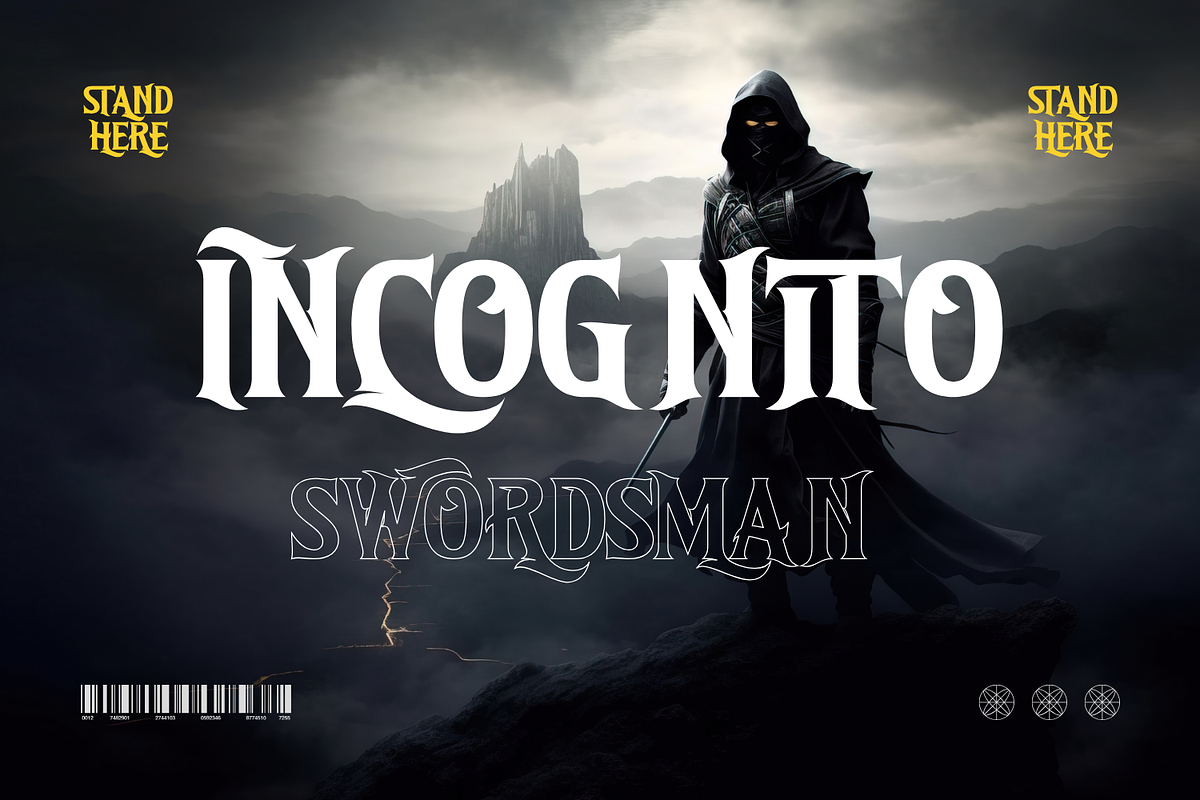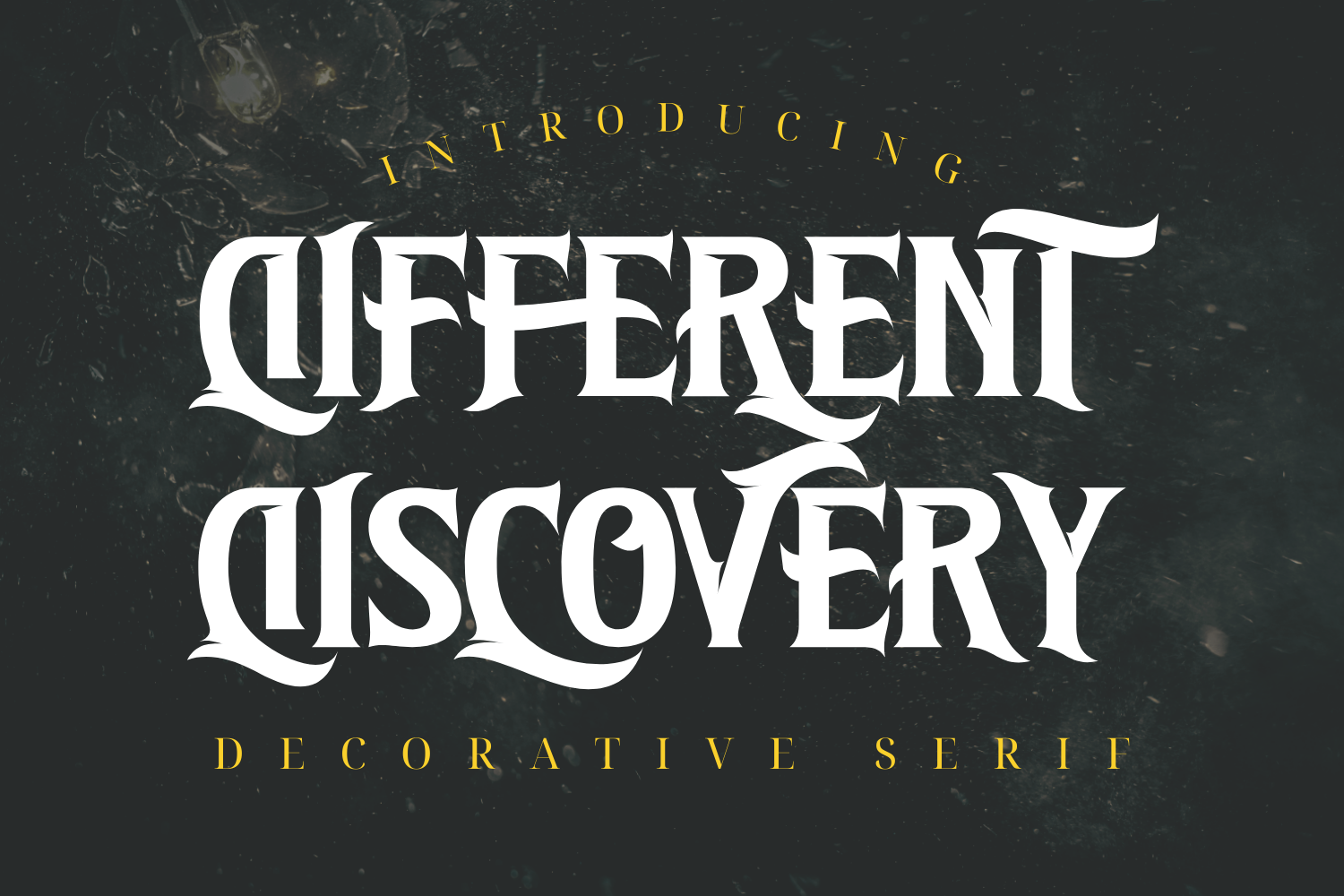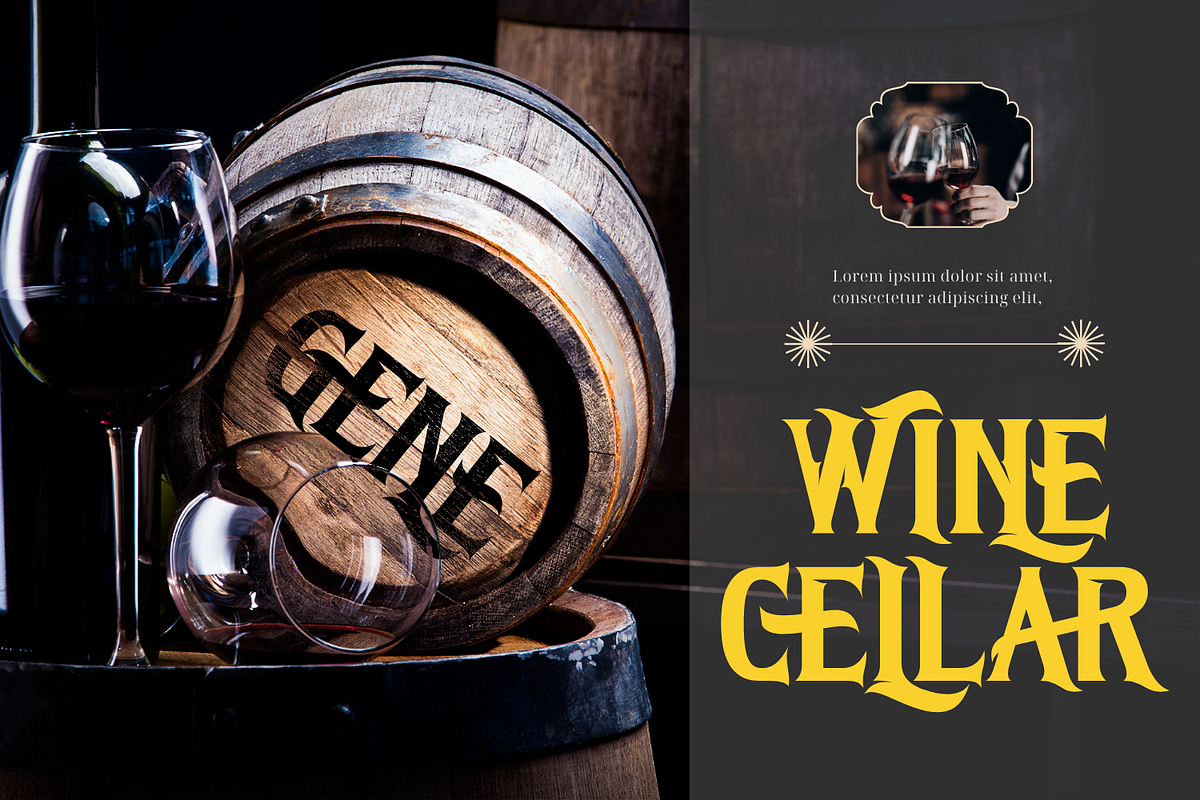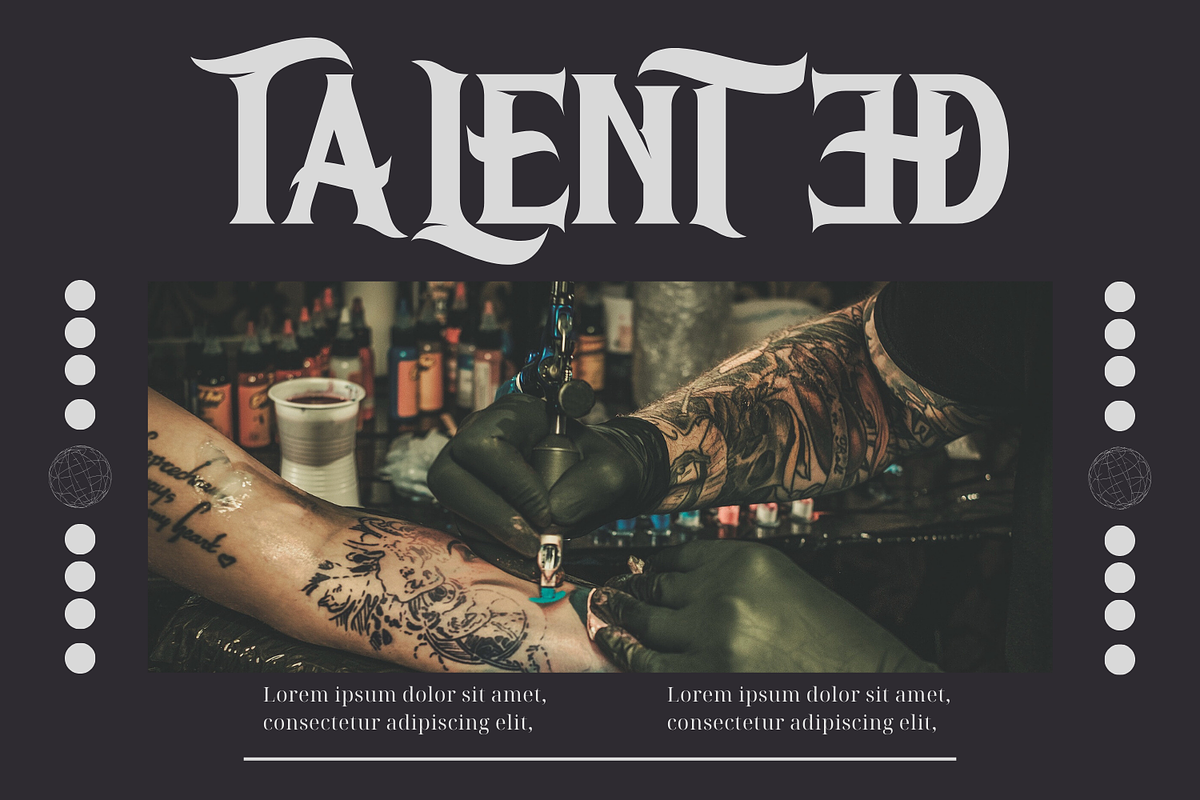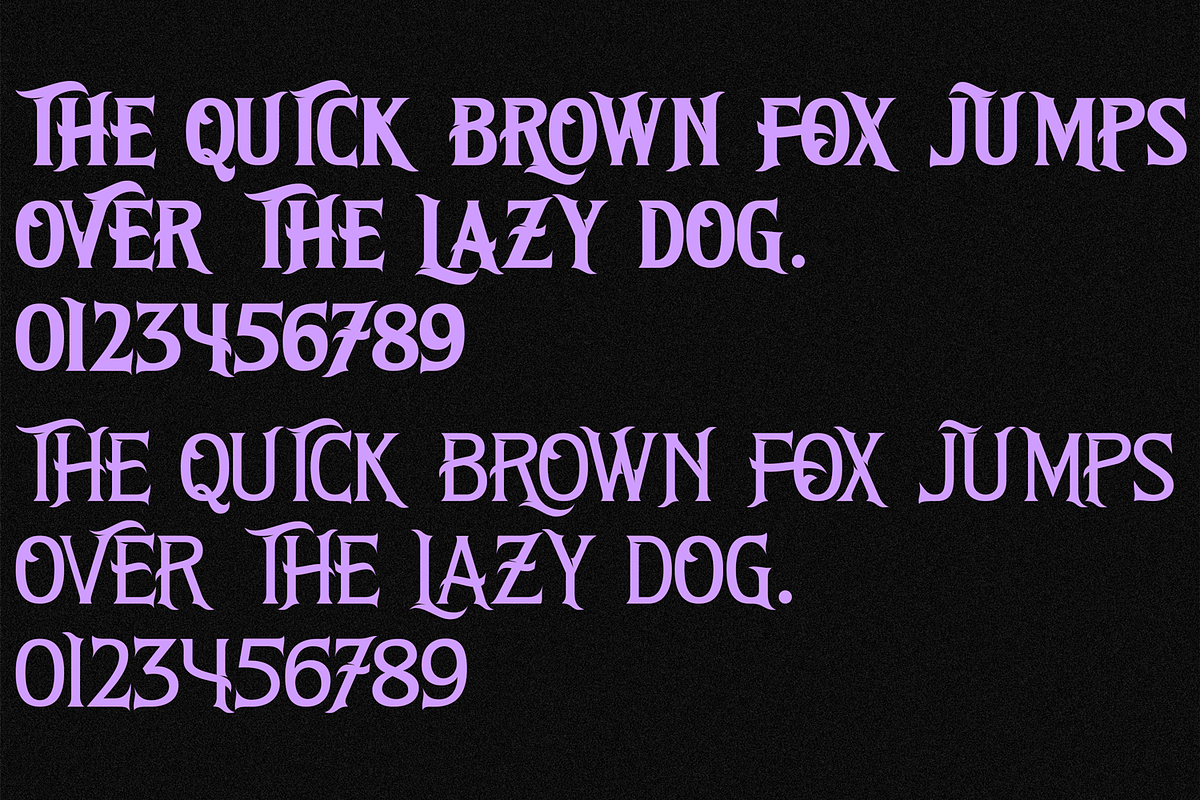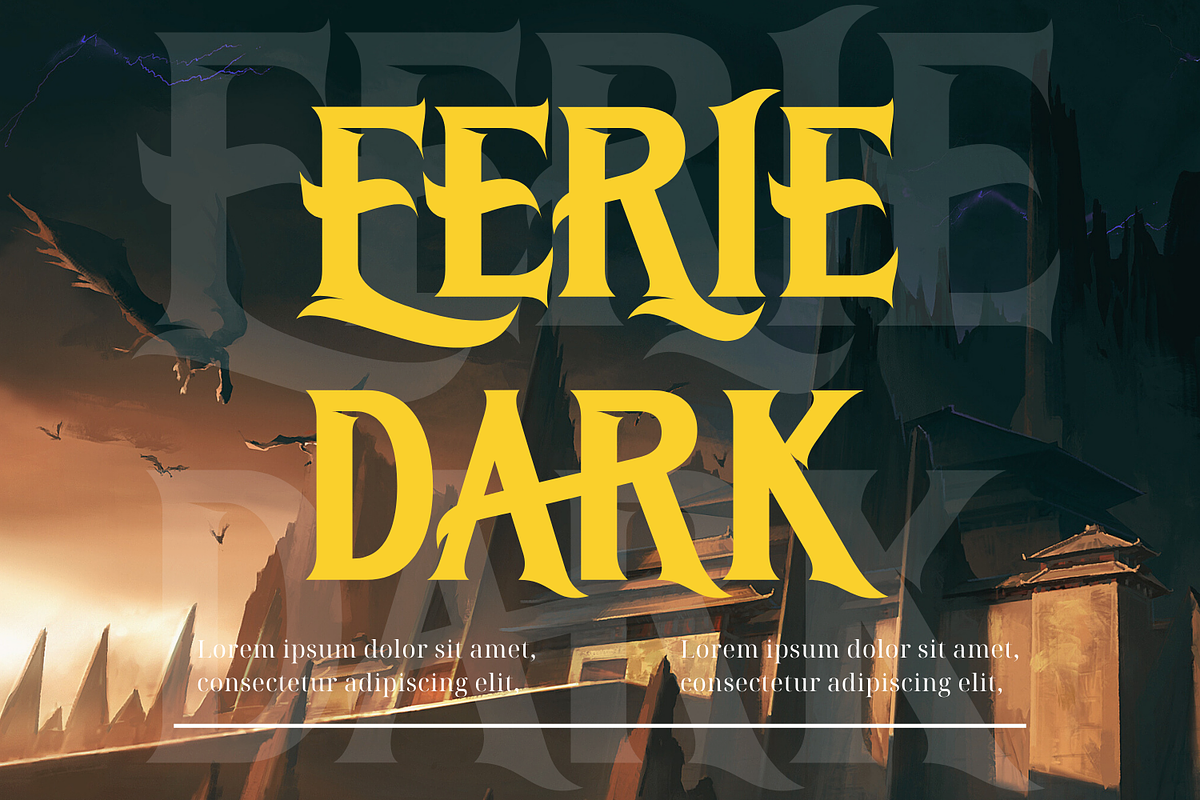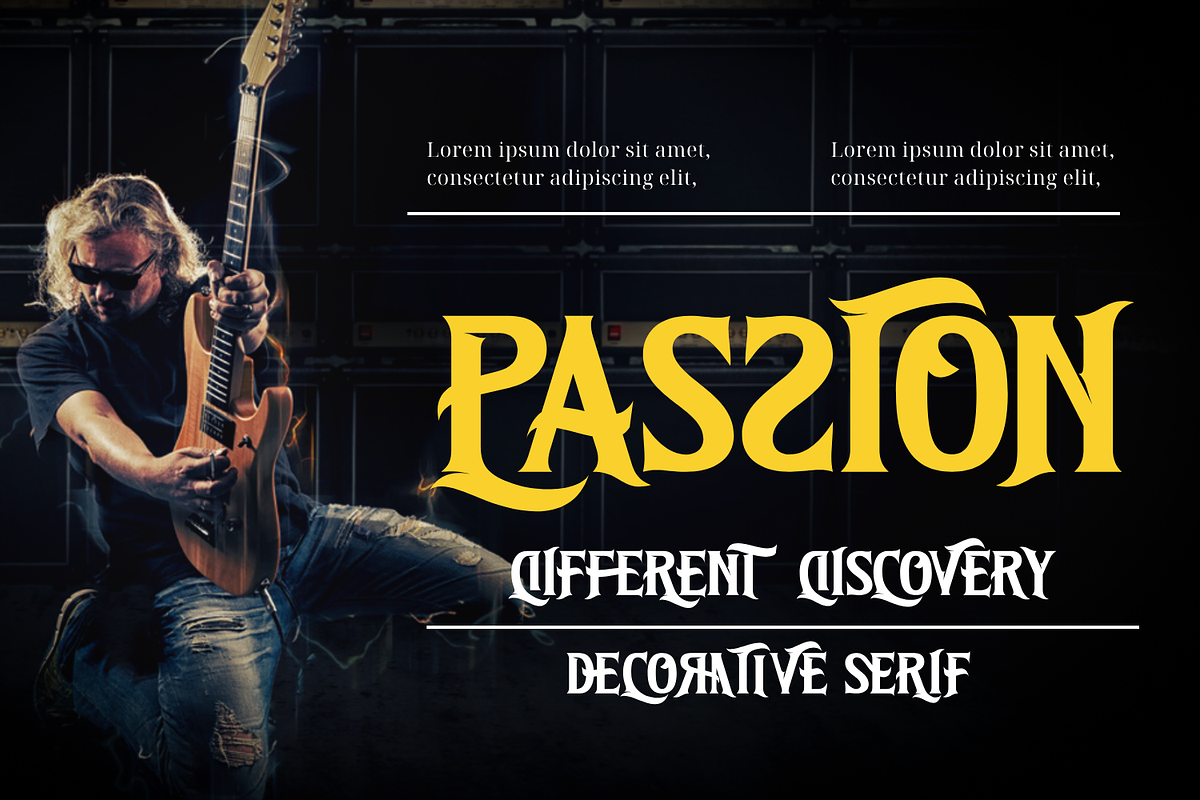
Different Discovery Font
Different Discovery Font is old vintage font inspire by culture of tatto and biker visual design. Firlest come with strong curve and artistic character make sense of elegance. Would be awesome for your merchandise design, streetwear, t-shirt, logo, typography design, poster, packaging, branding or anything else that can make your product looks awesome.
Different Discovery was built with OpenType features and includes 100 ligatures, alternate, numbers, punctuation, and it also supports other languages.
AC AD AL AN AR AS AT AU AV BE CA CE CH CO CT DE DI EA EC ED EE EL EM EN EP ER ES ET FE FO FR GE HA HE HI HO IE IC IL IN IO IR IS IT JU KE LA LE LI LL LO LY MA ME MI NC ND NE NG NO NT NS OC OF OM ON OO OP OR OT OU OW PA PR RA RD RE RI RO RS RT SE SH SI SO SS ST TA TE TH TI TO TR TT UM UN UR VE WI WO